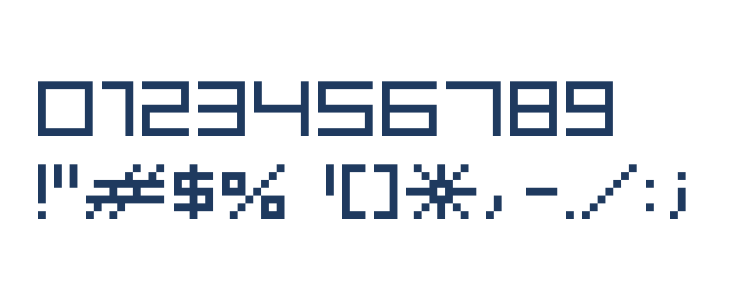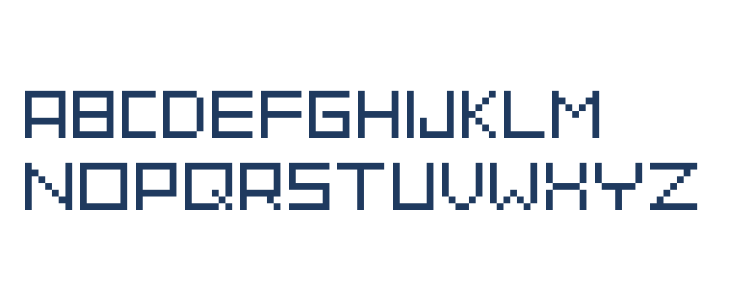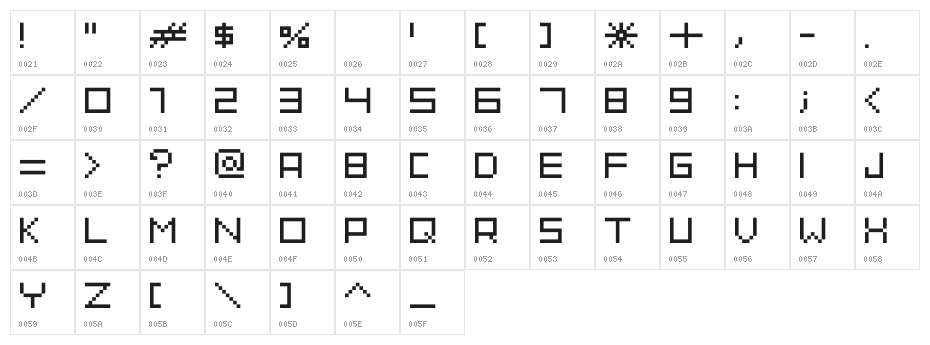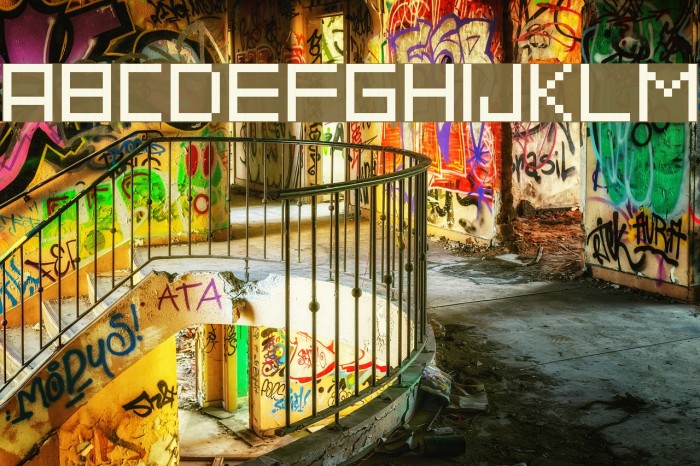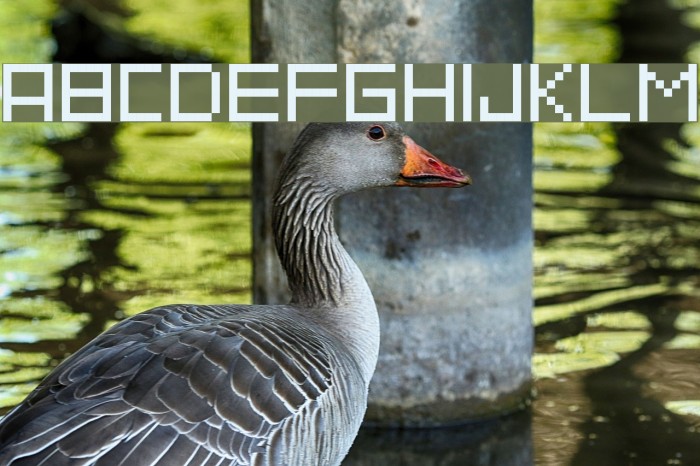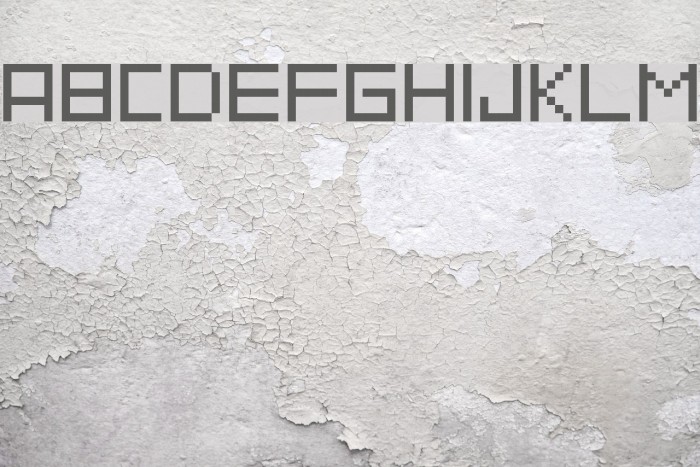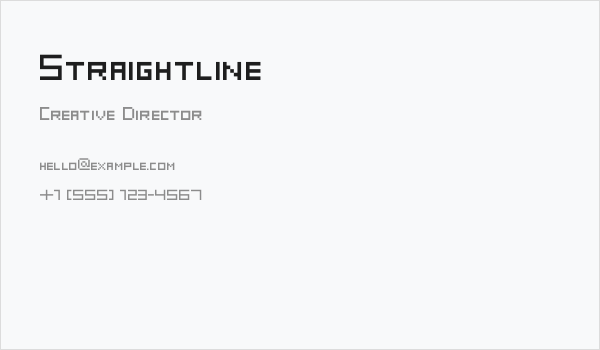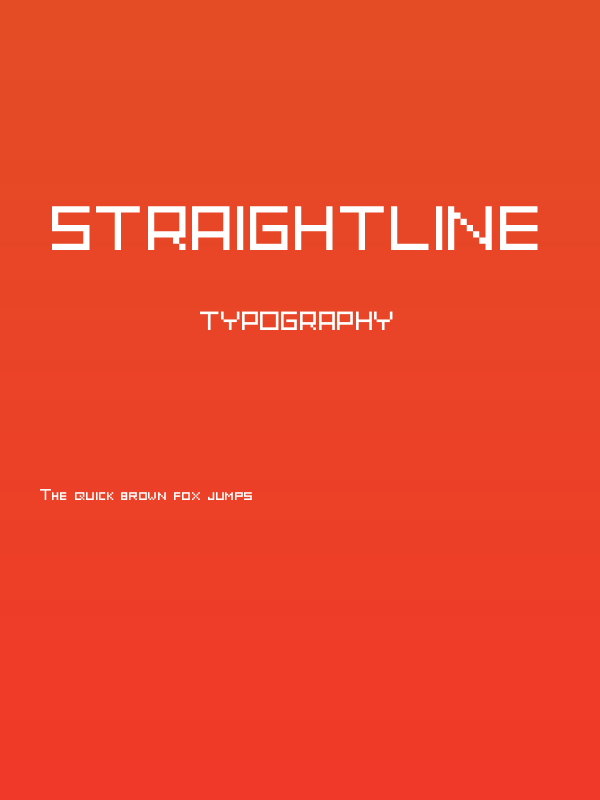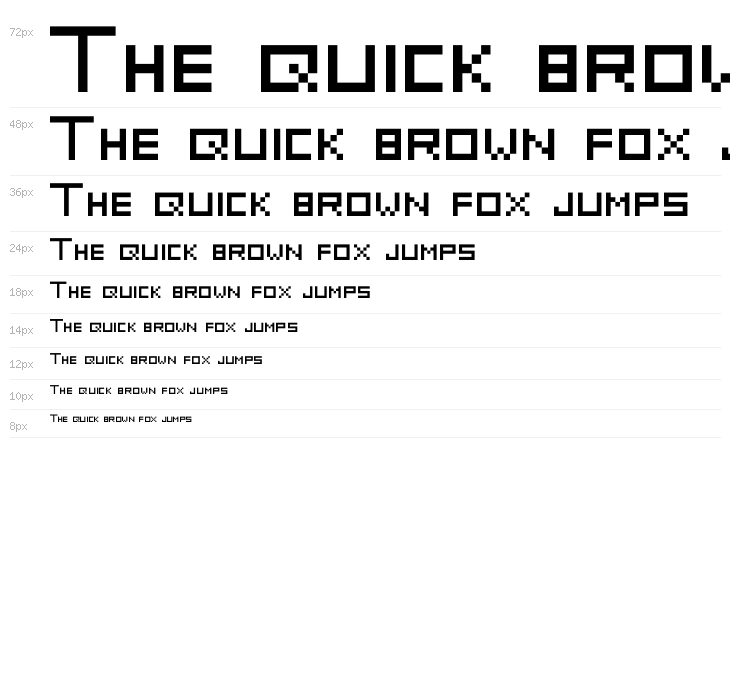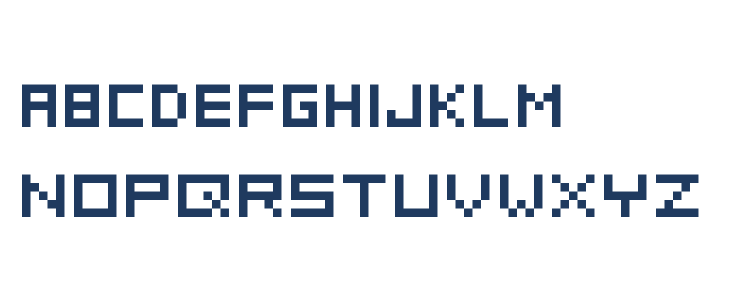
Straightline Font
Straightline Description
This font features a pixelated, grid-like structure that gives it a distinctly digital and retro appearance. Each character is composed of small square blocks, creating a uniform and consistent look across all letters and numbers. The uppercase and lowercase letters maintain a similar height, enhancing the font's cohesive style. The geometric design is reminiscent of early computer graphics and video game typography, making it ideal for projects that aim to evoke nostalgia or a tech-oriented theme. The characters are evenly spaced, contributing to a clean and organized visual presentation. The font's simplicity and clarity make it suitable for various digital applications, where readability and a modern aesthetic are desired.
Overall StyleRetro, Digital
Use CaseHeadlines, Logos, Digital displays
Proposed ProjectsIdeal for retro-themed video games, digital art projects, tech-related branding, and nostalgic graphic designs.